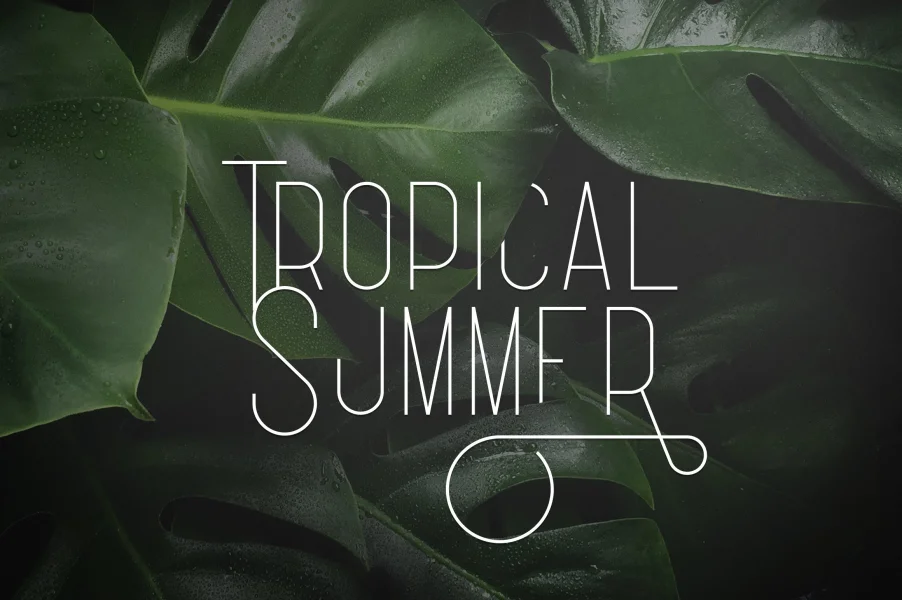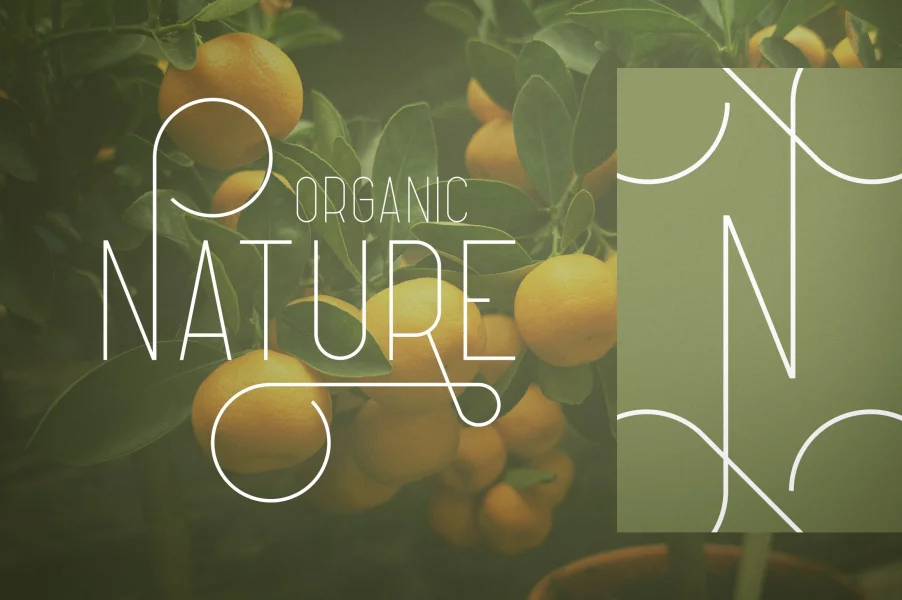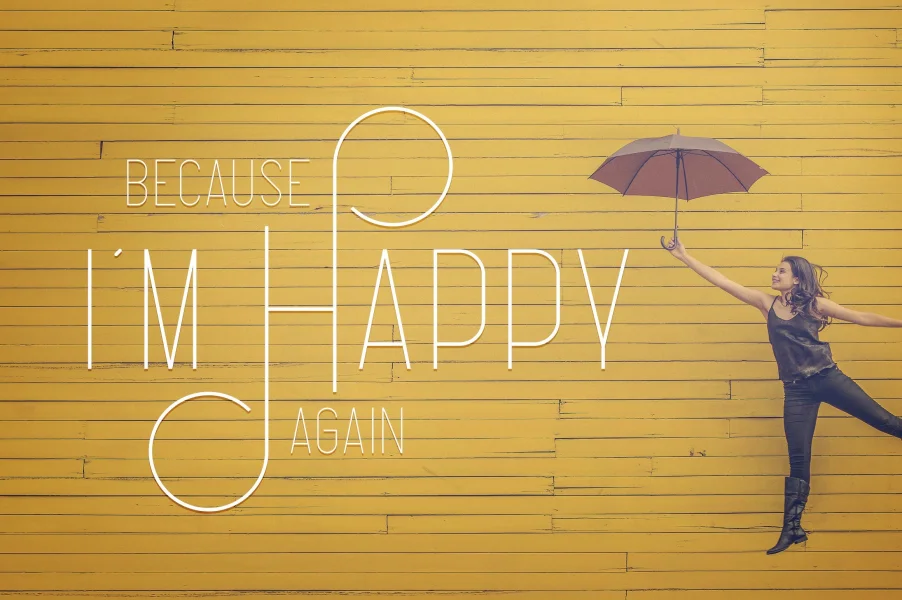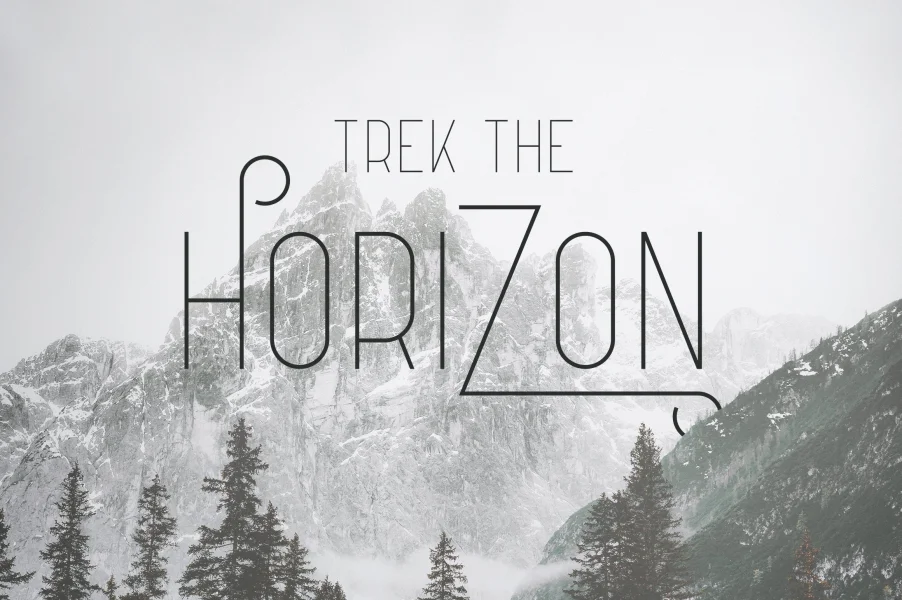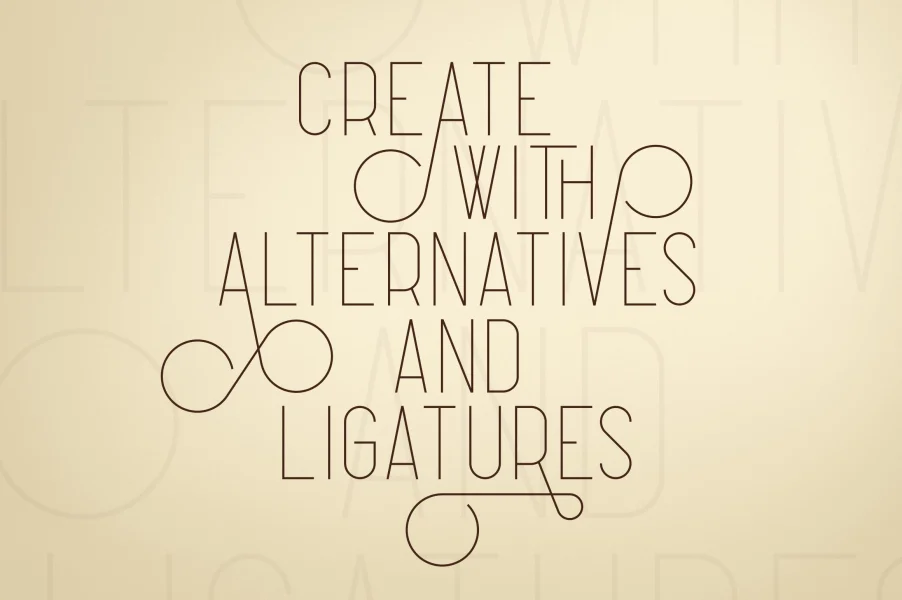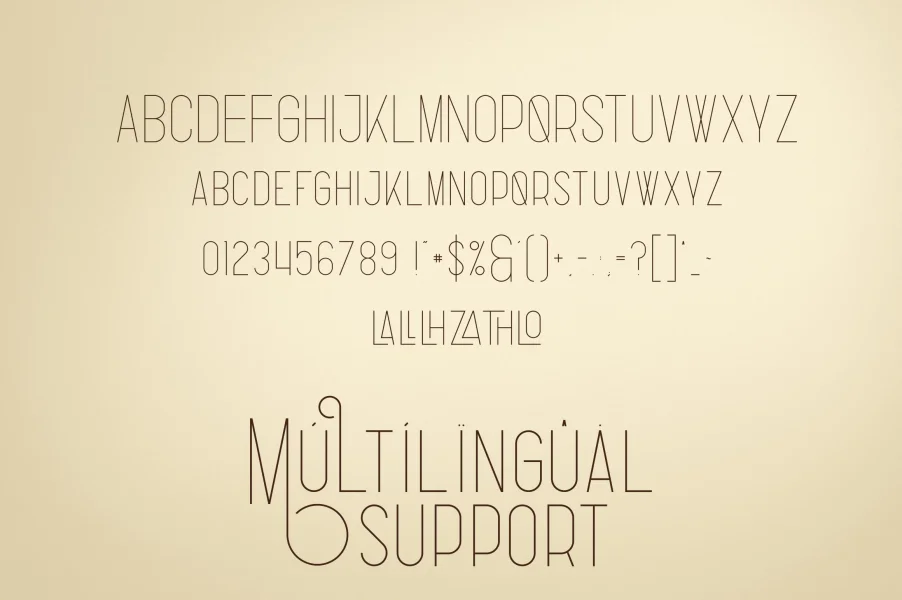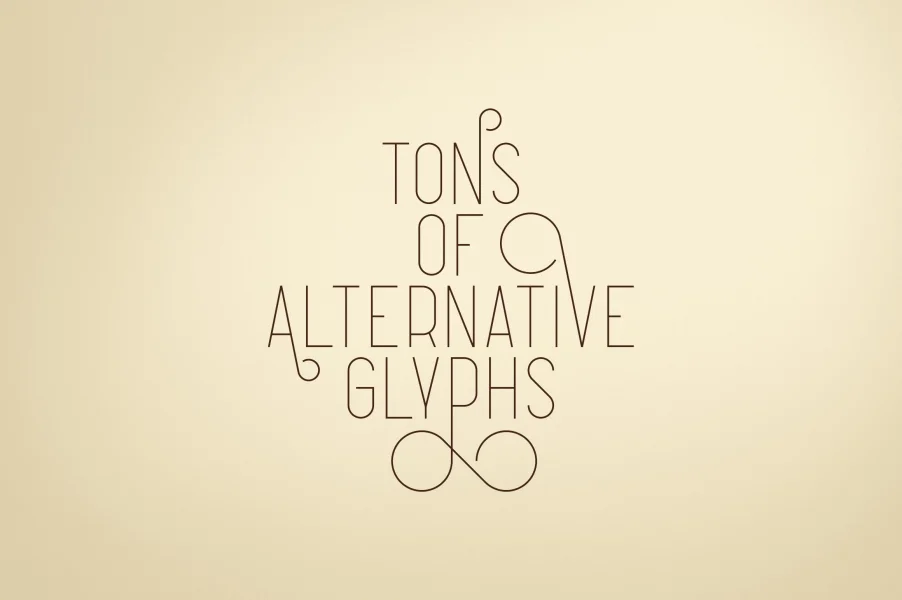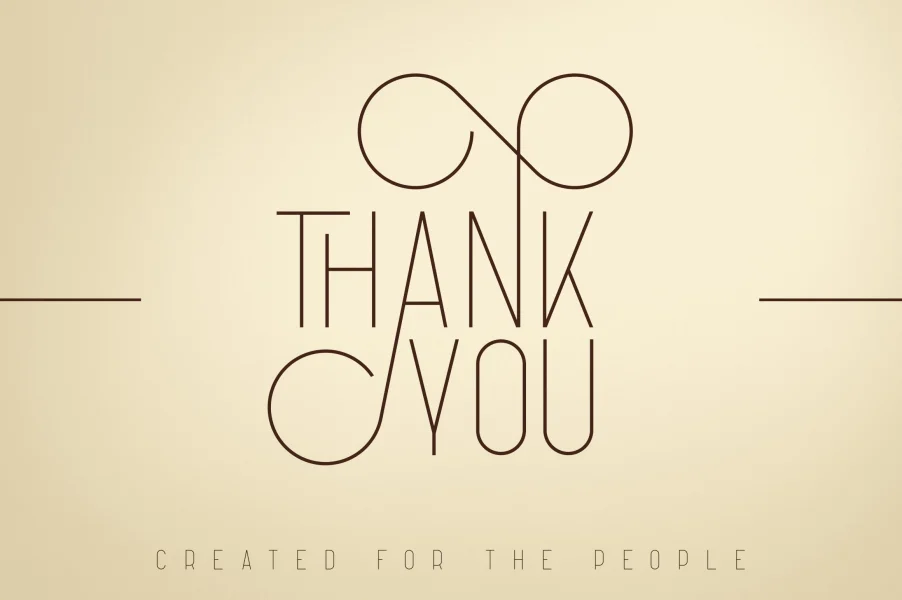
Introducing Fabulist - Display font
Fabulist is clean, modern font with tons of alternative glyphs, ligatures and multilingual support. It's a very versatile font that works great in large and small sizes.
Fabulist is perfect for branding projects, home-ware designs, product packaging, magazine headers - or simply as a stylish text overlay to any background image.
- Uppercase,lowercase, numeral,punctuation & Symbol
- Regular
- Tons of alternative glyphs
- Ligatures
- Multilingual support